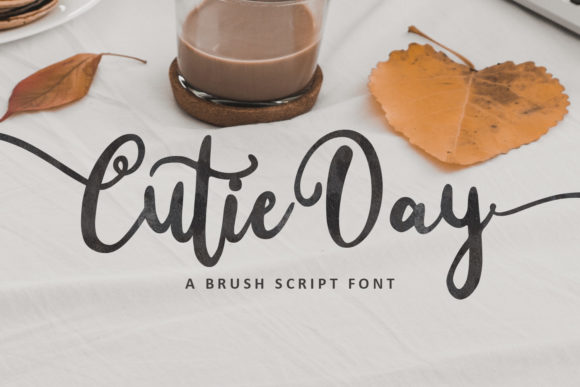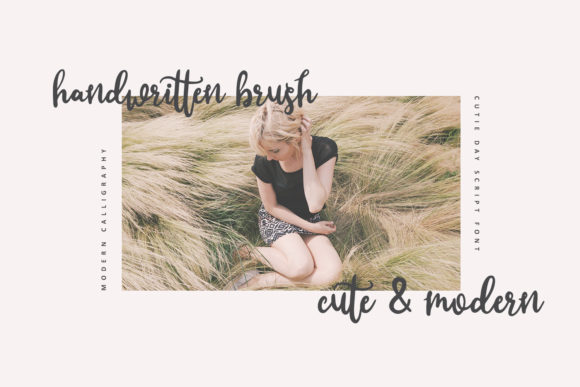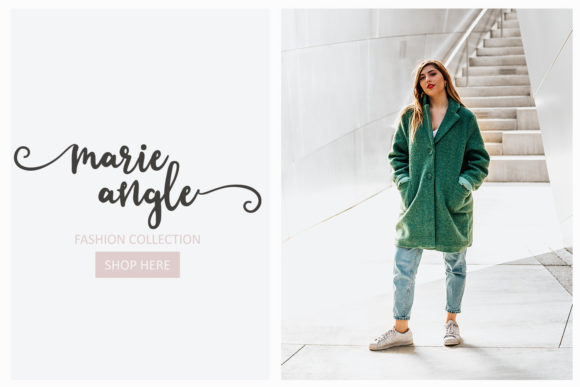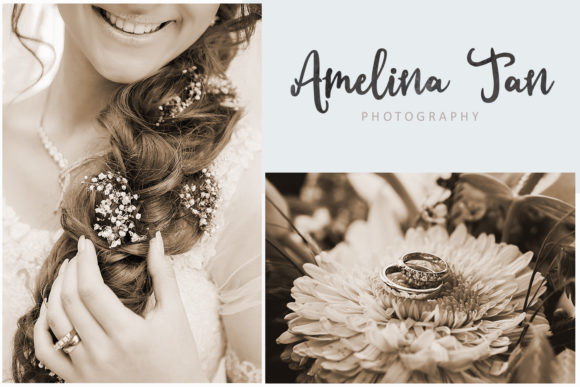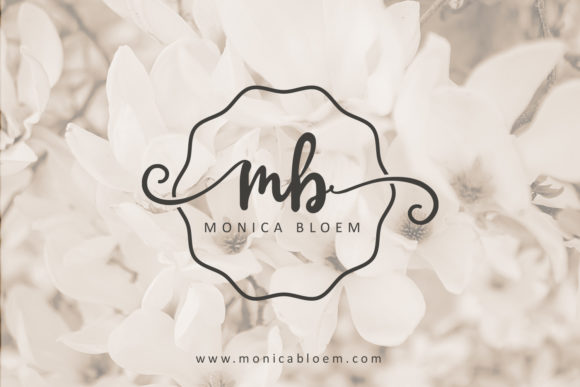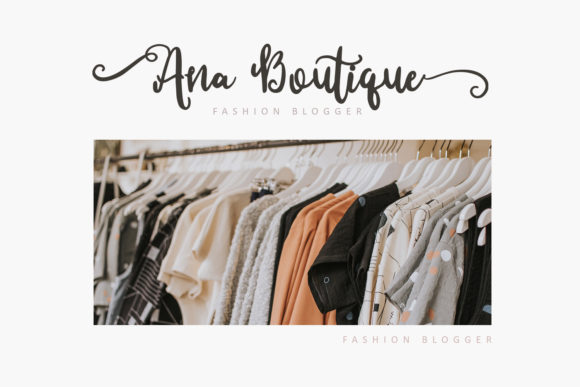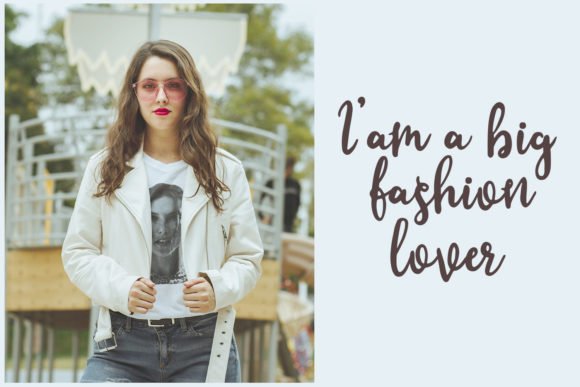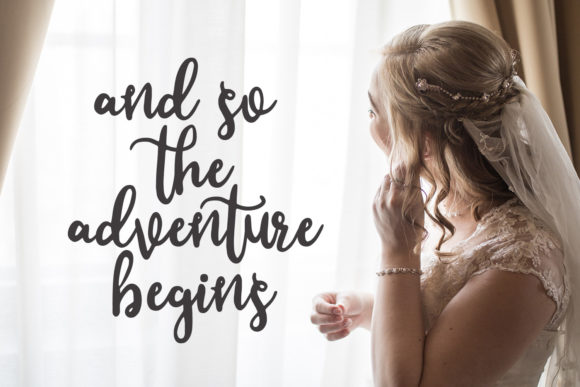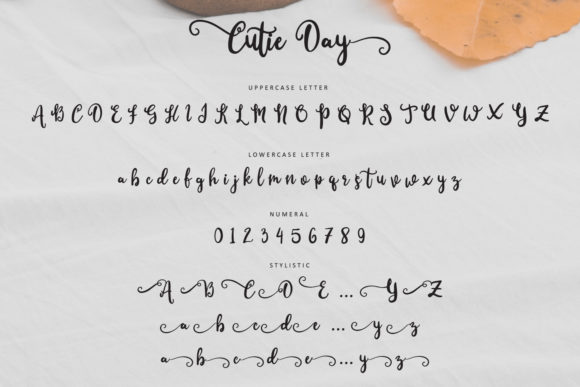
Cutie Day Font
About Cutie Day Font
The Cutie Day is cute, fun and playful script font, which will give your designs a fresh and modern feel.
It will look lovely on branding, quotes, posters, and all your other lovely projects.